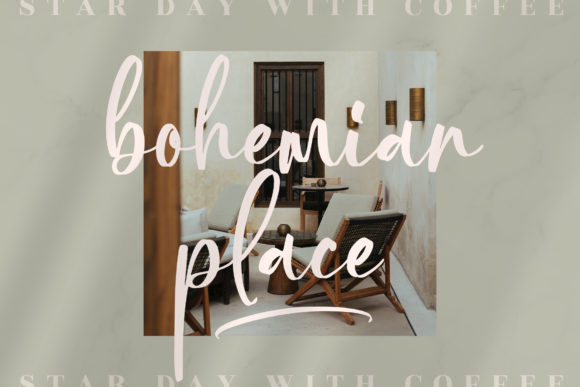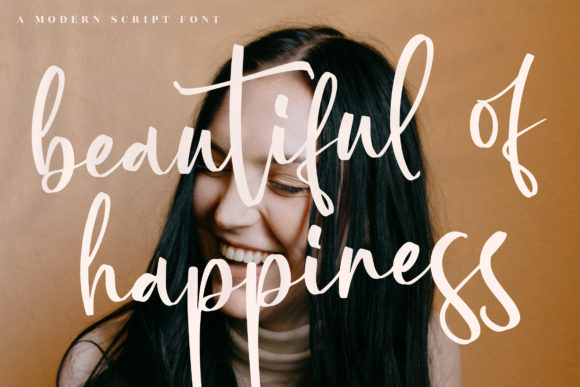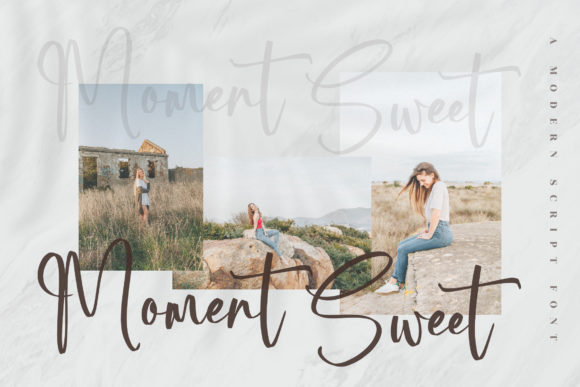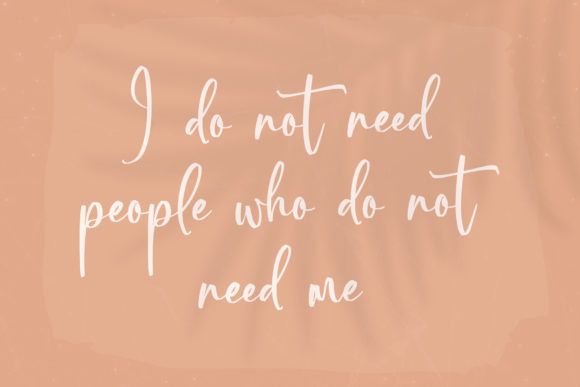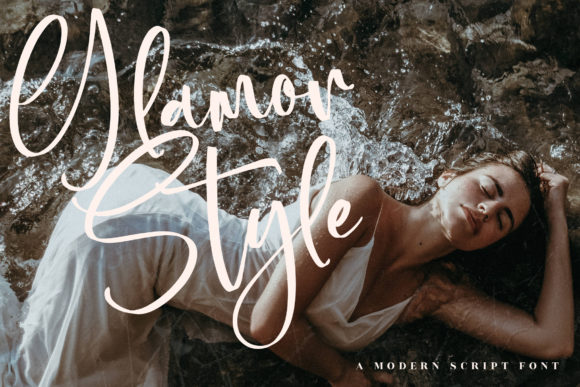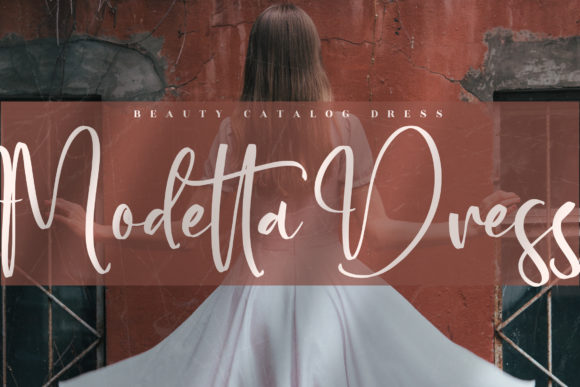
Introduction to Hottela Mofaland Font Font
Fonts play a crucial role in design, and the Hottela Mofaland Font font is a typeface that brings both character and versatility to any project. Whether you’re working on a branding project, a website, or a print design, the Hottela Mofaland Font font offers a unique style that can elevate your work.
Hottela Mofaland is a fashionable and delicate script font.
It is suitable for any projects such as: logos, branding projects, label, photography, watermark, special events, and all your other lovely projects that need a beautiful script taste .
Key Features of Hottela Mofaland Font Font
Why Choose Hottela Mofaland Font Font?
The Hottela Mofaland Font font is more than just a typeface – it’s a design tool that helps you communicate your message with style and clarity. Its unique character set and versatile design make it suitable for a wide range of applications, from elegant invitations to bold headlines.
With its carefully crafted letterforms and balanced proportions, the Hottela Mofaland Font font ensures readability and visual appeal across all mediums.
What makes Hottela Mofaland Font font special?
The Hottela Mofaland Font font stands out with its unique design, exceptional readability, and versatility across various design applications.